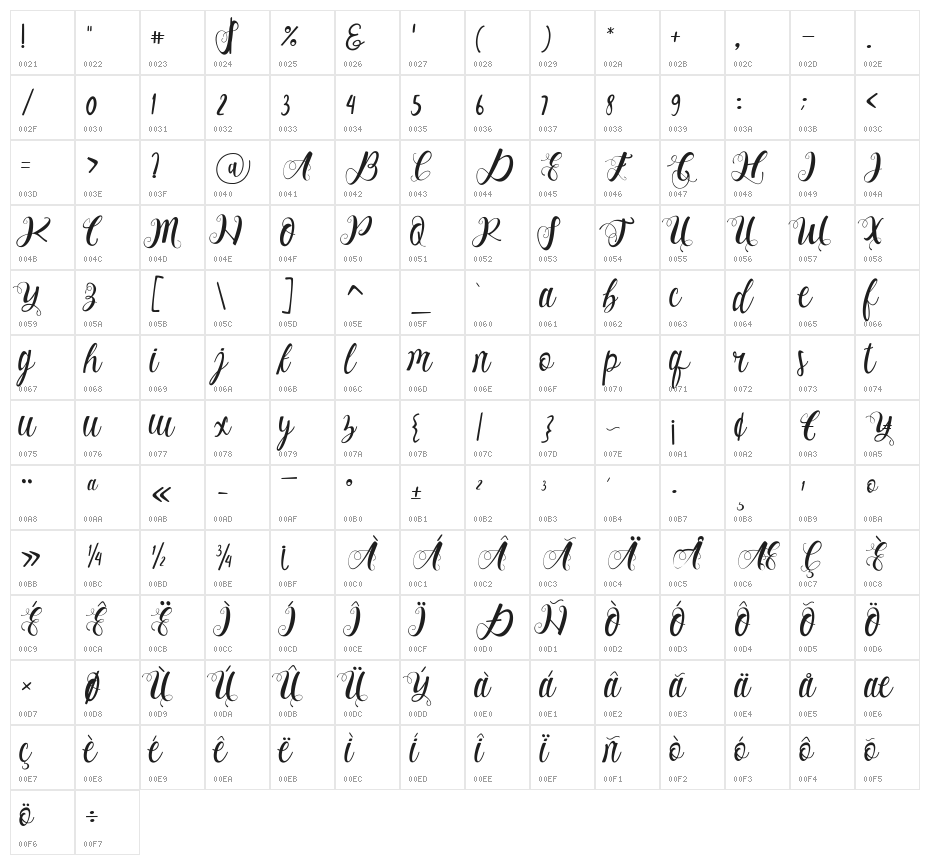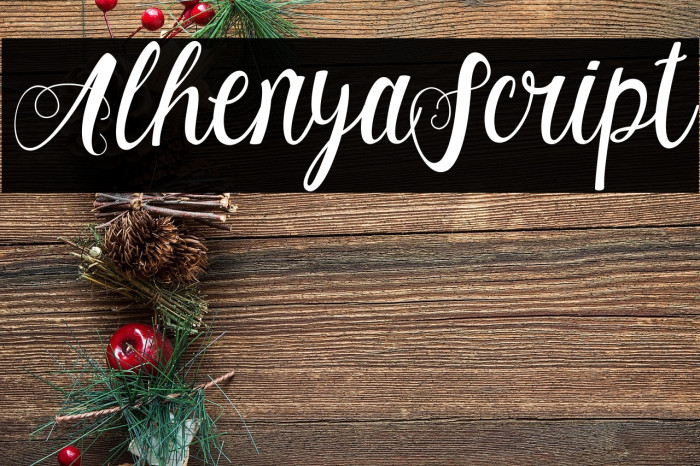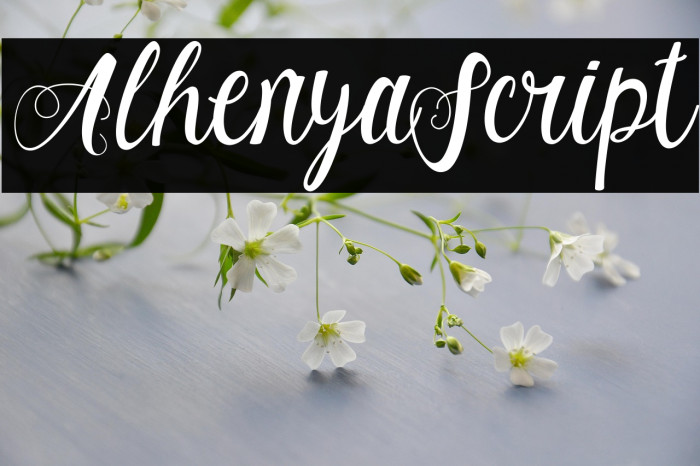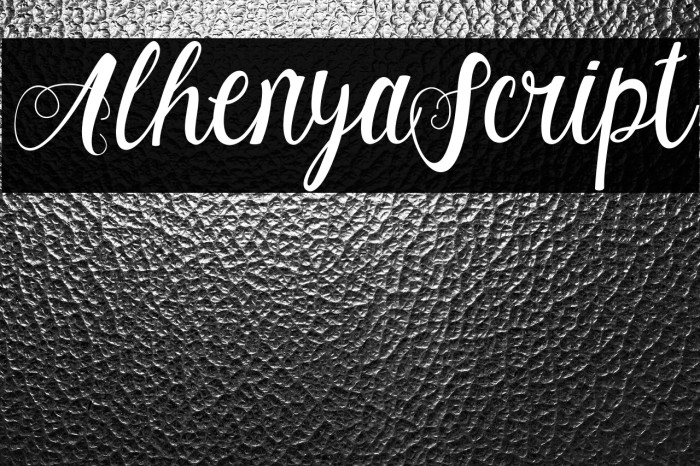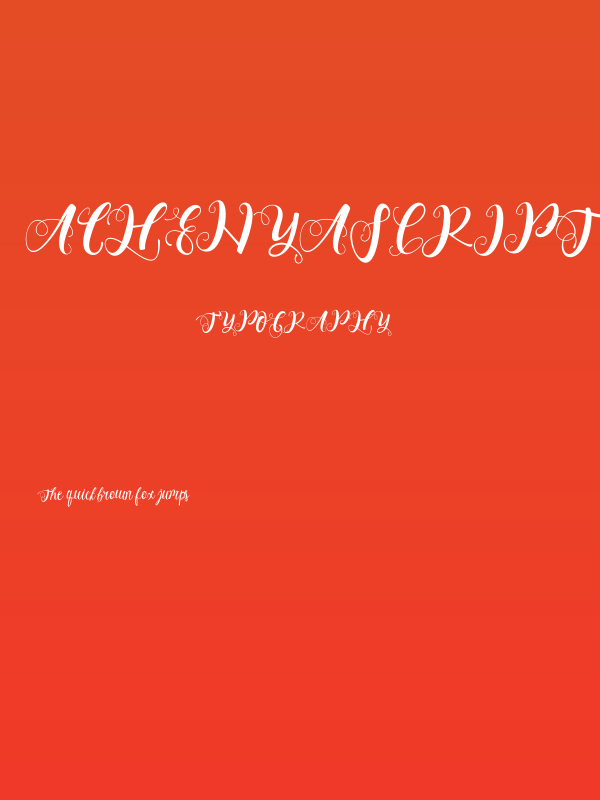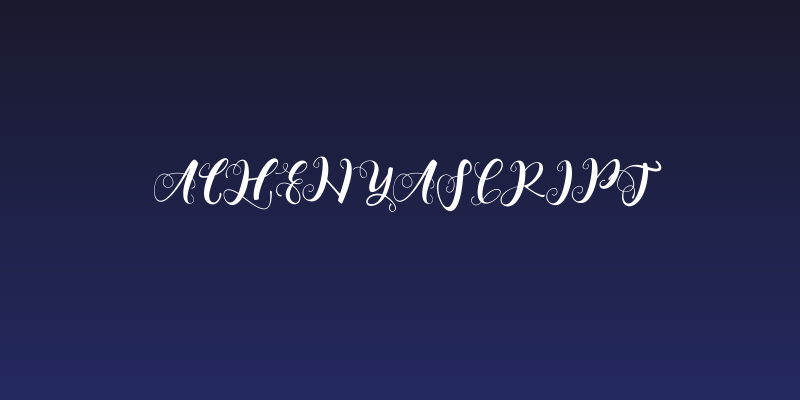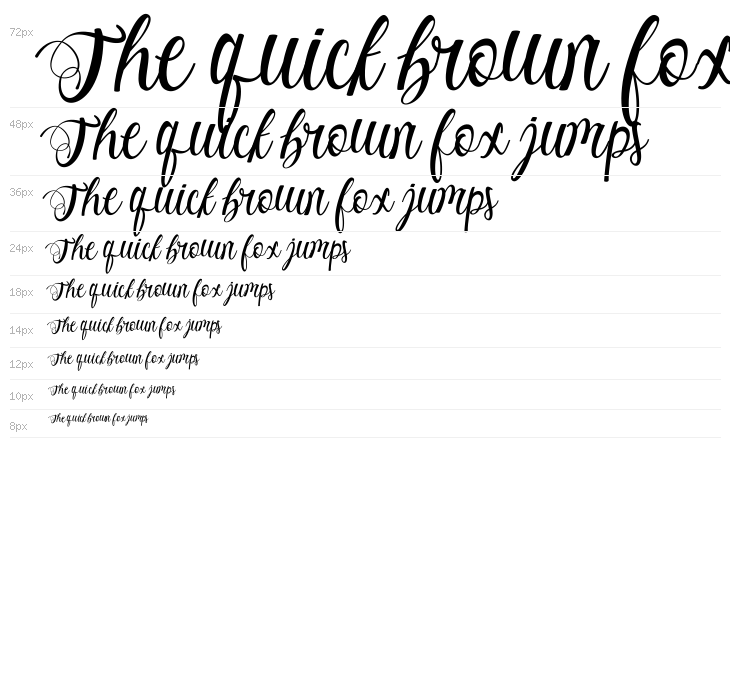
AlhenyaScript Font
AlhenyaScript Description
This font exudes elegance and sophistication with its flowing, cursive style. The uppercase letters are adorned with intricate swirls and loops, giving them a decorative flair that is both eye-catching and graceful. The lowercase letters maintain a consistent fluidity, with smooth curves and a slightly slanted orientation that enhances readability while retaining a stylish appearance. The numerals are clear and well-defined, complementing the overall script style. Special characters are crafted with the same attention to detail, ensuring a cohesive look across all glyphs. This font is perfect for projects that require a touch of elegance and personality.
| Use Case | Headlines, Invitations, Branding |
| Proposed Projects | Ideal for wedding invitations, elegant branding, personal stationery, and decorative headlines. |